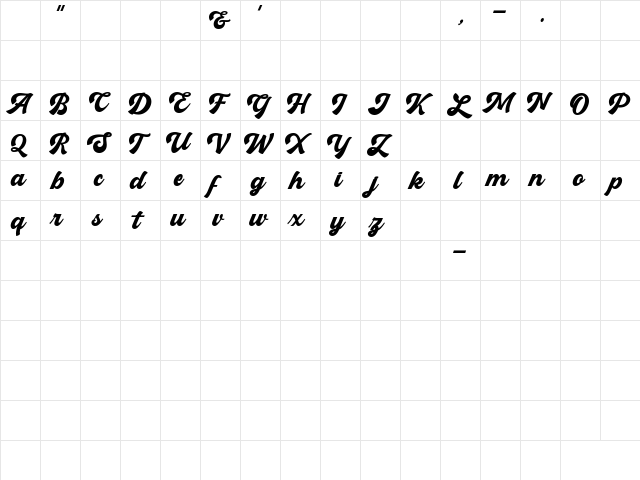
Boldmatte Personal Use Only Regular
| Designer | Fuad Hasan |
Design Context for Boldmatte Personal Use Only Typeface
Boldmatte Personal Use Only takes a measured approach to typography — its balanced proportions and neutral character make it a reliable workhorse for both digital and print work. The heavy weight commands attention and anchors typographic hierarchies.